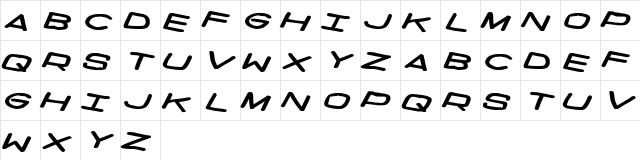
PrivateInvestigations Regular
PrivateInvestigations is a composed and adaptable typeface that performs quietly and consistently across a wide range of design contexts.